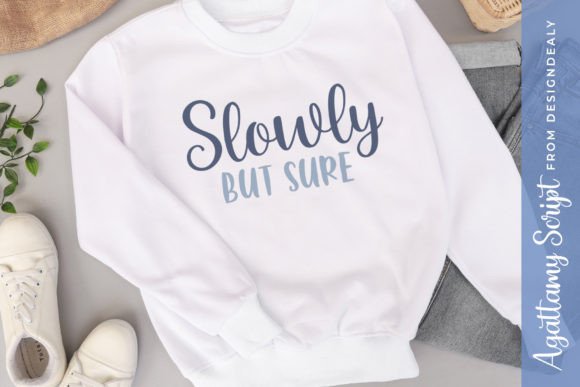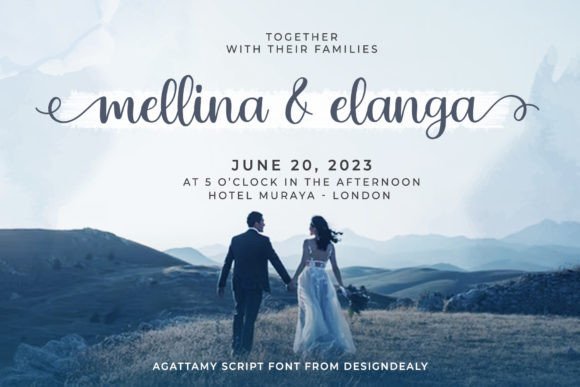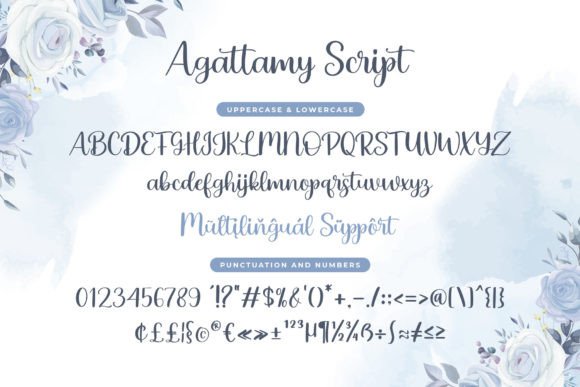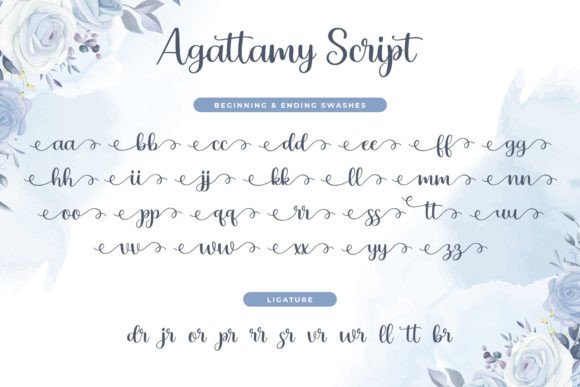
Agattamy Script Font
About Agattamy Script Font
Agattamy Script is a delicately crafted handwritten font designed to be a true favorite. With a contemporary and fresh appeal, it proves to be perfect for a myriad of design purposes. Integrate it into your creative projects, and witness how it elevates them to outstanding levels.
The delicate nature of Agattamy Script lends a touch of refinement to your designs. Each stroke is masterfully crafted, adding a unique charm to the overall aesthetic. Whether you’re working on invitations, branding, or any other project, this font adapts seamlessly, becoming a versatile tool in your creative arsenal.
The contemporary and fresh style of Agattamy Script ensures that it remains relevant across various design trends. Its timeless quality makes it a font that stands the test of time, contributing to the longevity and visual appeal of your creations.
Incorporate Agattamy Script into your design projects, and experience the transformative power it brings. From its delicate handwritten elegance to its adaptability across different design contexts, this font is crafted to become a standout element in your creative endeavors.
In summary, Agattamy Script is not just a font; it’s a design companion that adds a delicate touch of mastery to your projects. Make it a favorite in your creative toolkit and let it be the key ingredient that makes your designs outstanding and memorable.